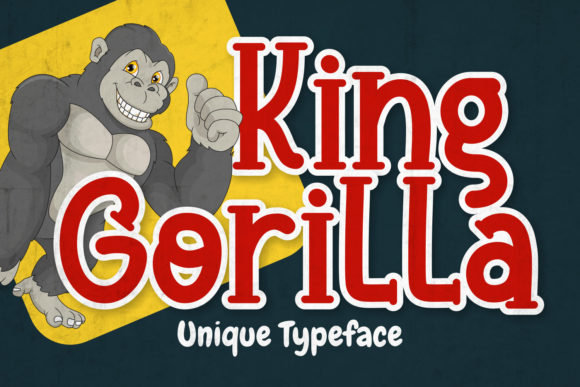
Unleash your inner child's imagination with King Gorilla, the whimsical display font that adds a touch of playful charm to any design. Its quirky and animated characters dance across the page, captivating readers of all ages.
Step into a world of enchanting stories and let King Gorilla guide you through magical adventures. This font is a perfect fit for children's books, posters, greeting cards, and any project that calls for a joyful and lighthearted touch.
With its bold and expressive strokes, King Gorilla commands attention and brings life to every word. Its unique letterforms create a sense of movement and energy, inviting readers to dive into the world you create.
Join the creative journey with King Gorilla and watch your ideas come alive. Let its playful spirit inspire you to craft captivating designs that resonate with your audience. Embrace the magic of storytelling and captivate your readers with this delightful font.